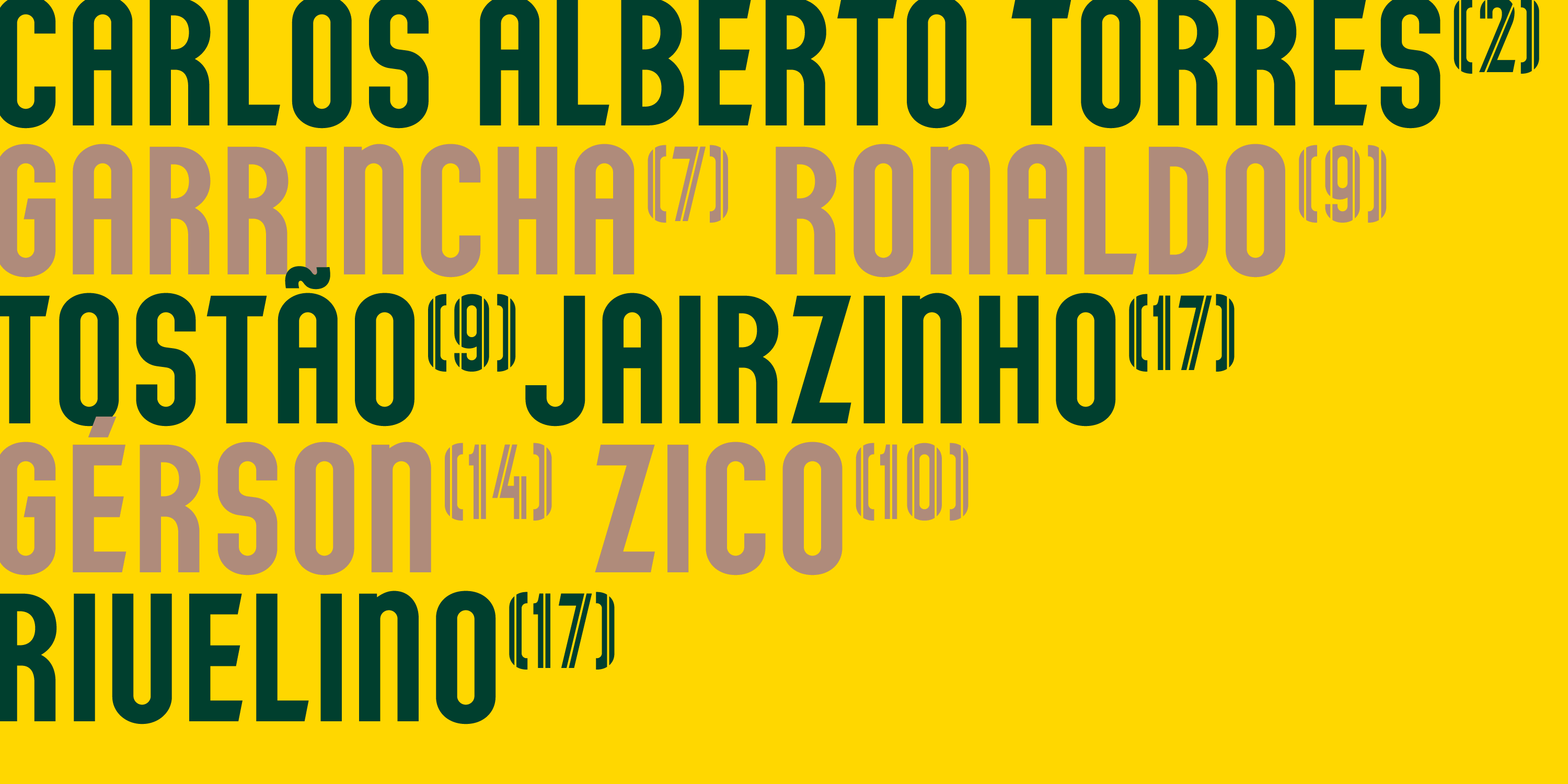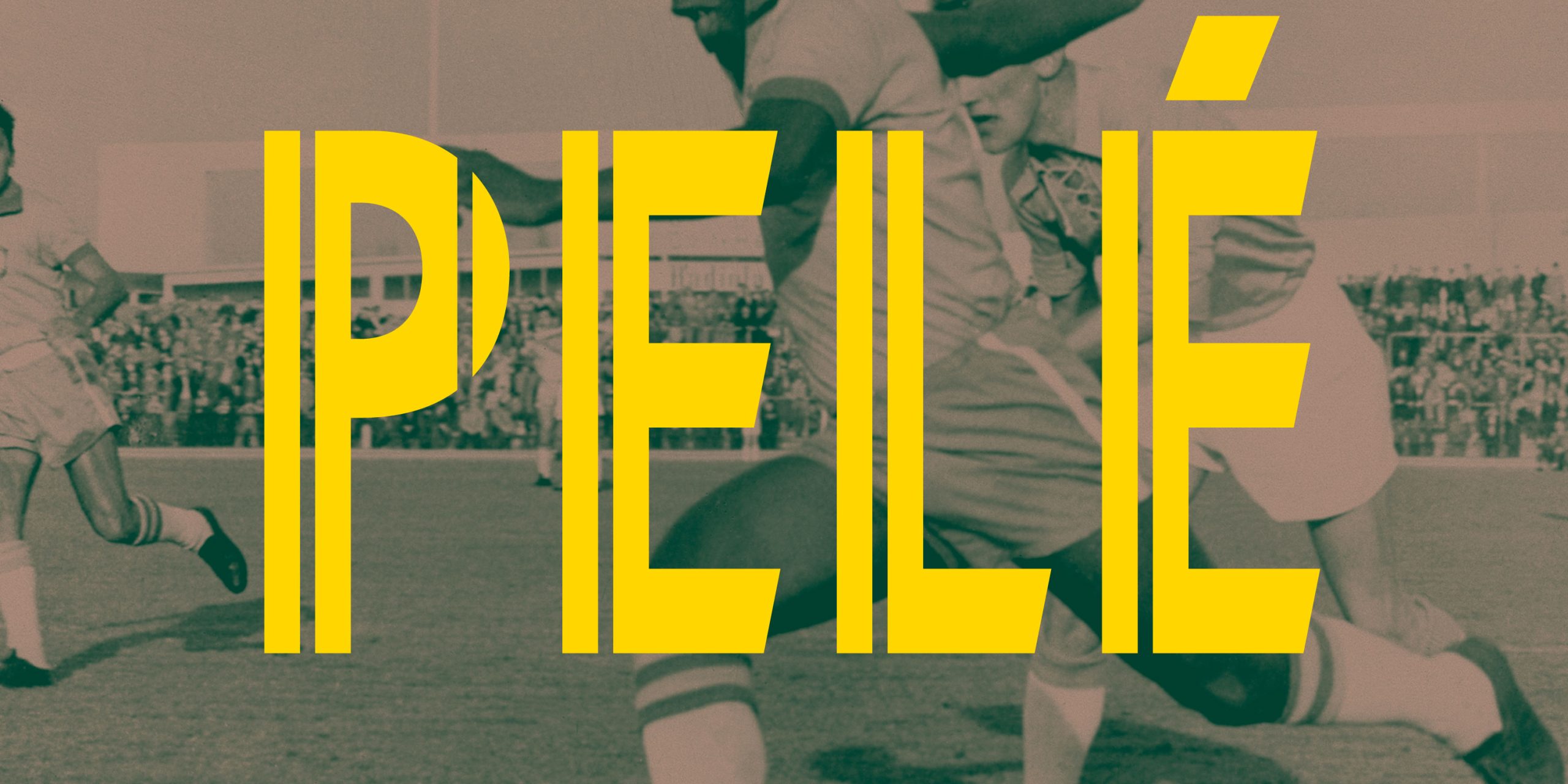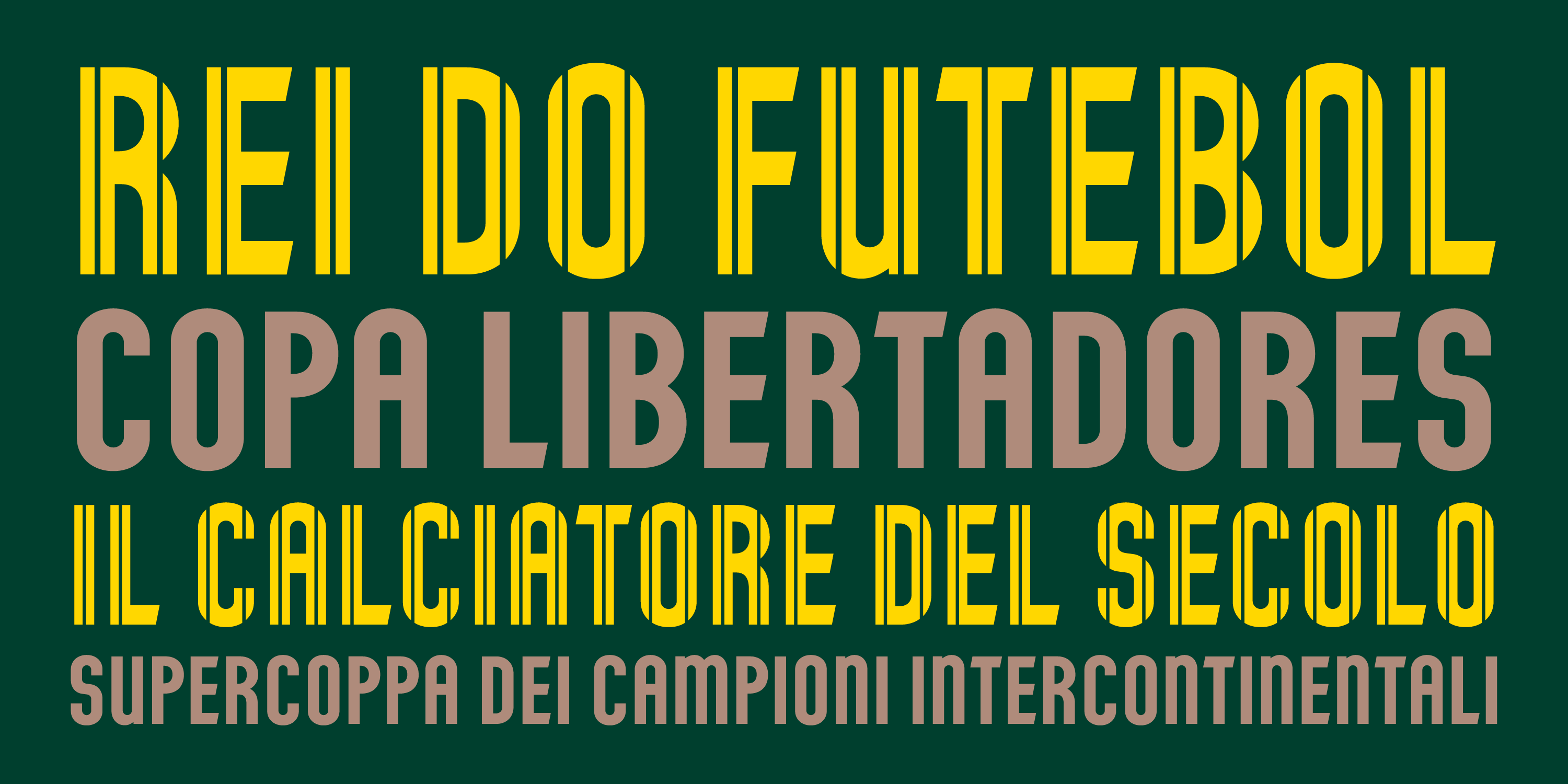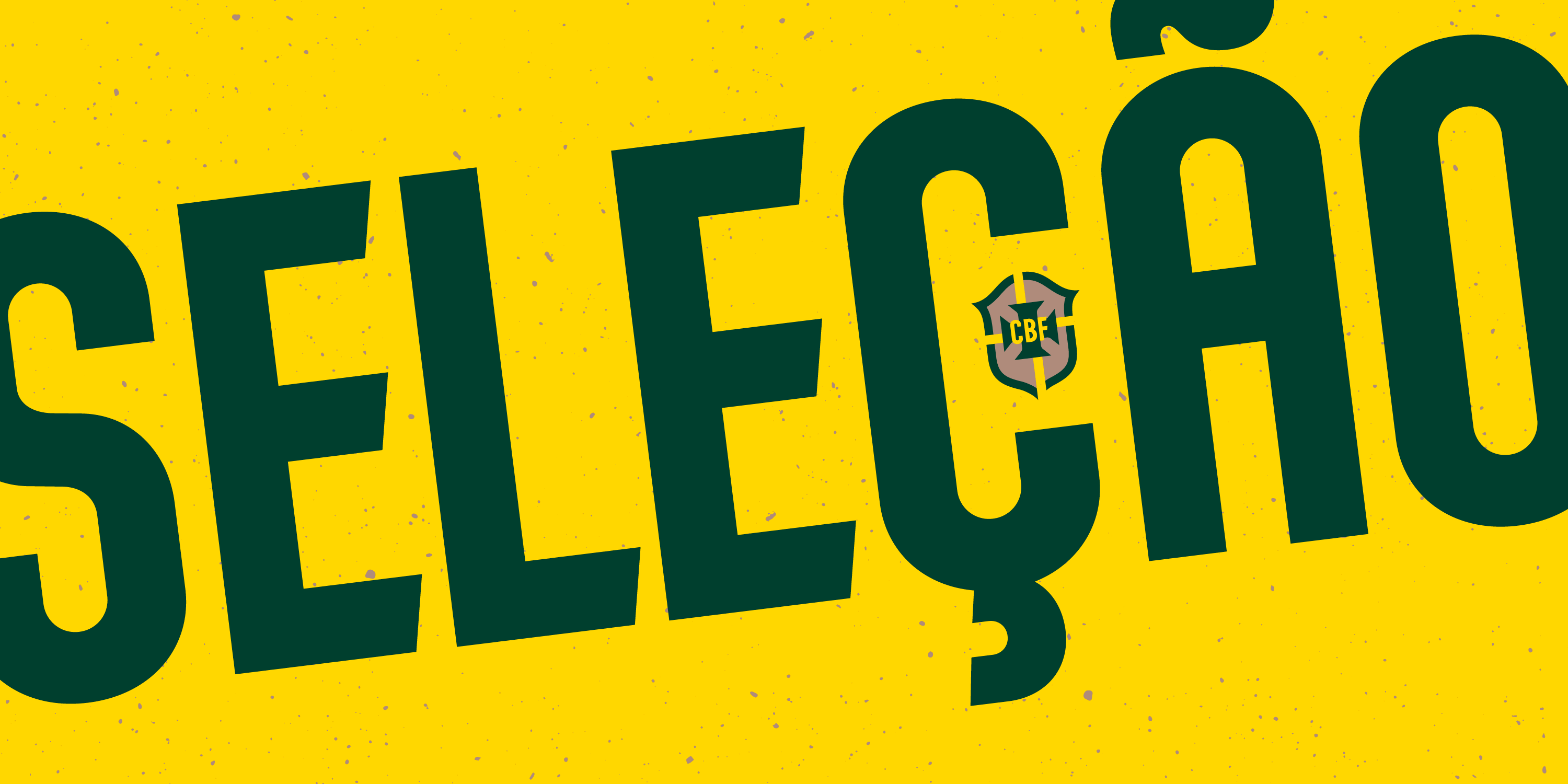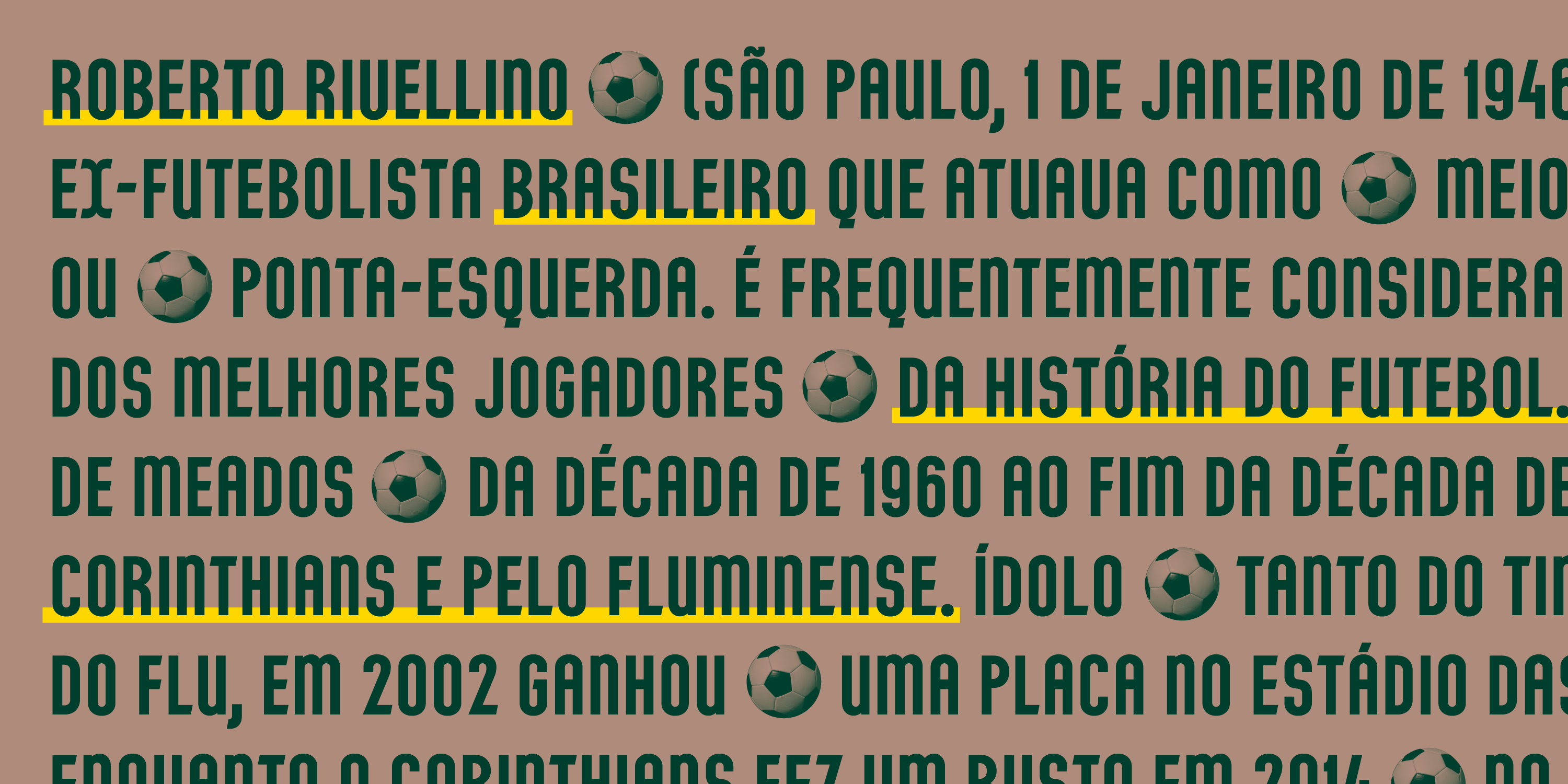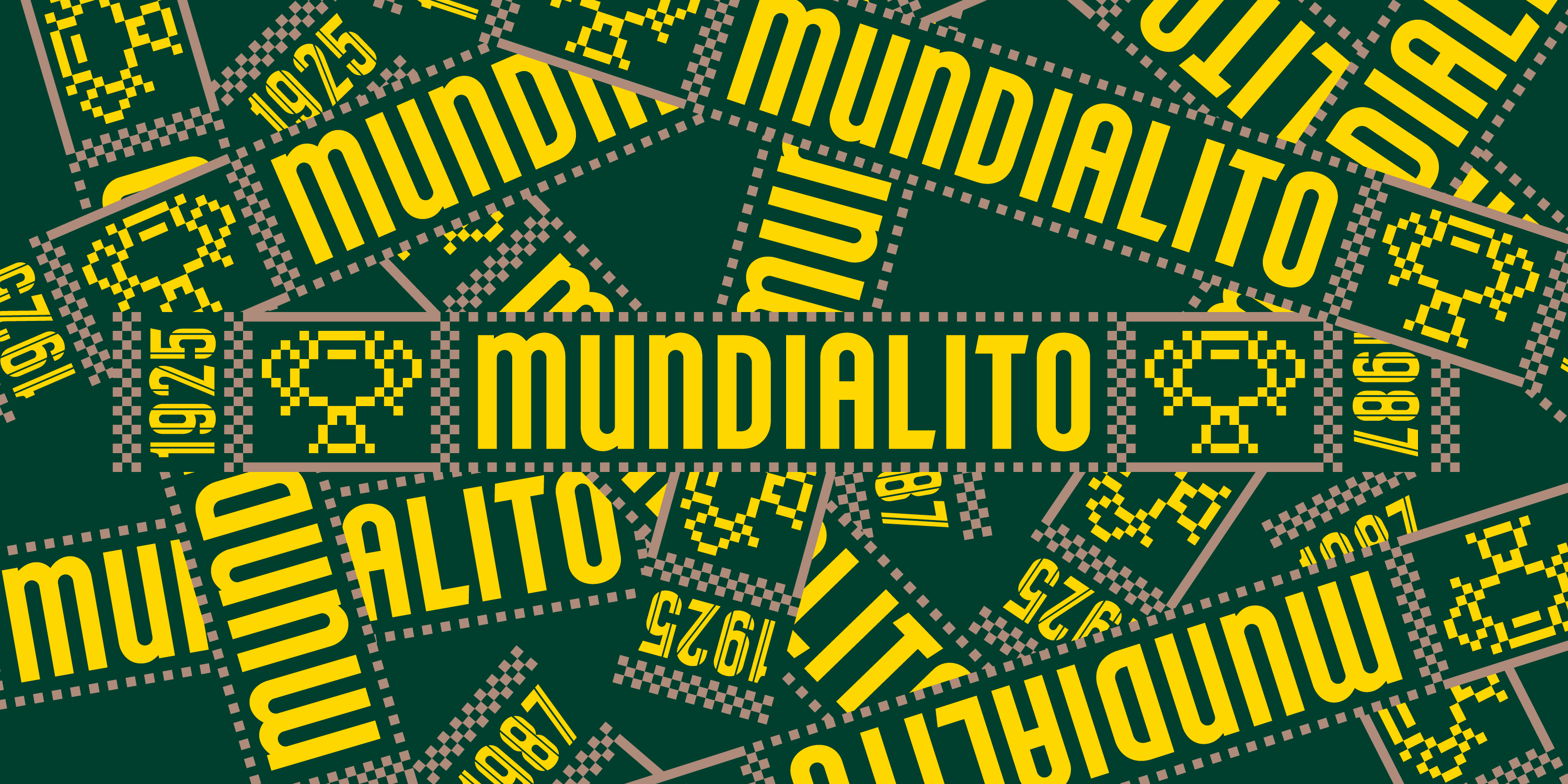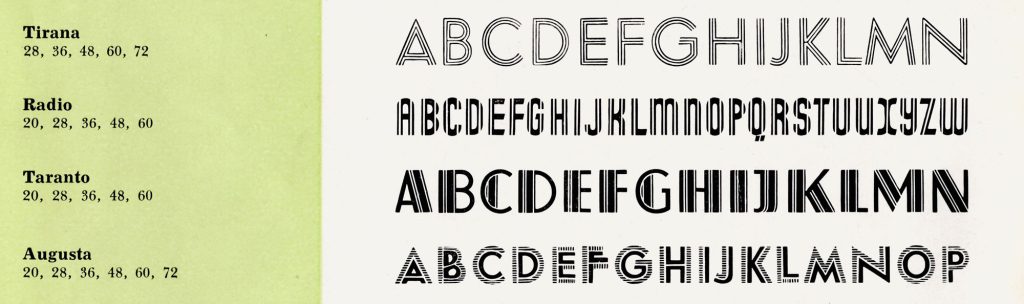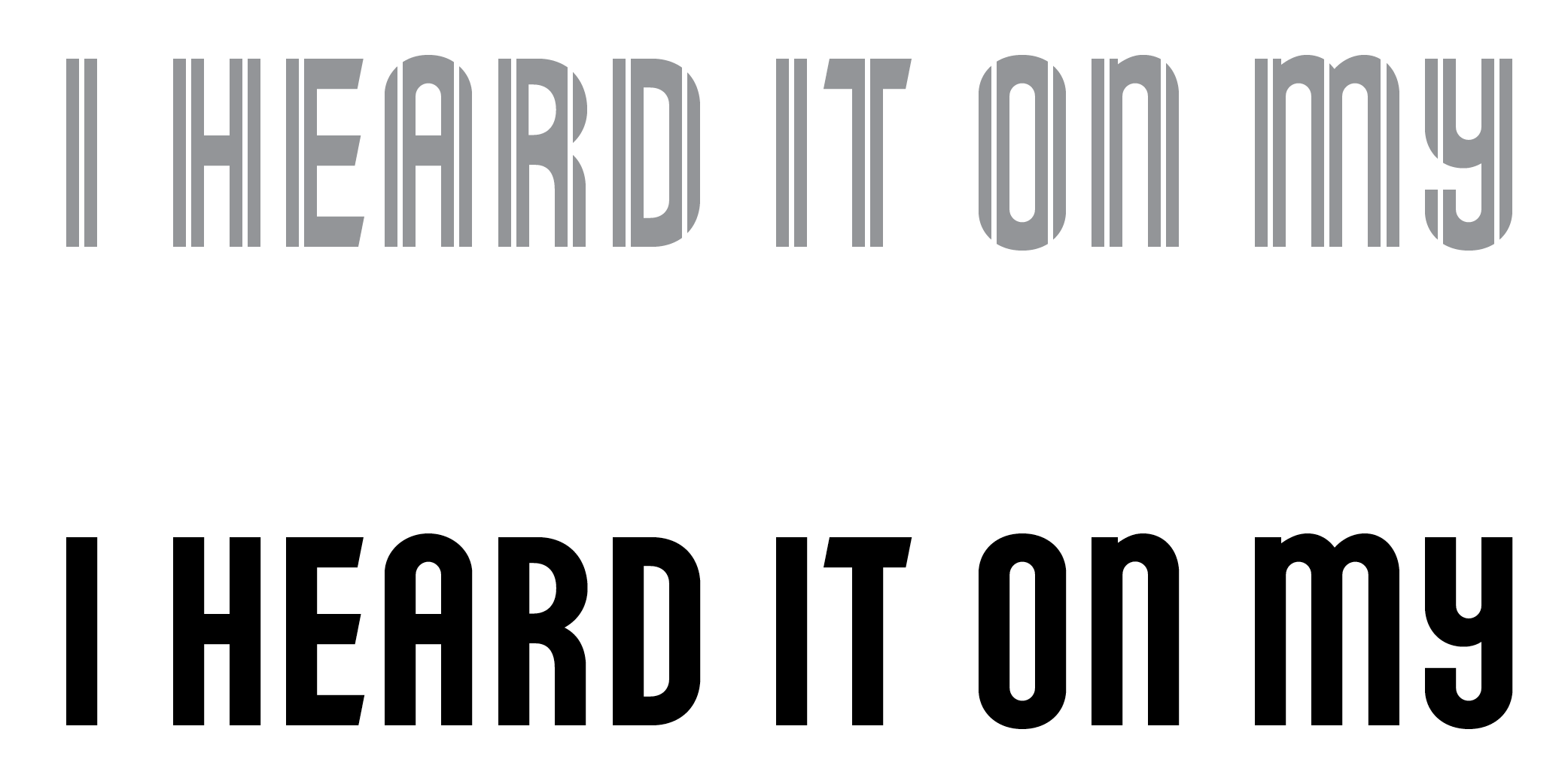
Radio
Radio is an all-caps sans serif with no thick/thin contrast in a modular design that was very popular in the 1930s. Rounded details of A, K and W, and lowercase shapes for M, N and Y are featured in other types in the Alfabeti Modernisti collection, such as Serie 610 and Udine. Radio’s distinctive details are the diagonally cropped terminals of horizontal strokes and, most notably, an unusual inline which cuts vertical stems into two halves. Originally cast in metal around 1935 by Fonderia Tipografica Meridionale Armando De Luca in Naples, it was released in several body sizes from 20 to 60 points.
Designer
Maria Jarzyna
‘When designing the AM Radio digital revival, I focused on improving the proportions to make the characters feel more natural,’ says Maria Jarzyna. ‘I used letters such as H and O as a basis for proportions and spacing, and adjusted a few stroke endings to achieve better proportions and balance. After testing several stroke and inline widths, I chose the one that felt most consistent. Overall, I only corrected what was necessary to keep the type in line with modern requirements, while preserving its original logic and texture. In Radio’s original design, round forms weren’t treated consistently. I worked to unify them, making overly round shapes a bit squarer and overly square ones smoother. The ampersand and brackets were problematic, so I redrew them. I also reused the left side of the question mark in characters like €, £, and quotation marks.’
A solid version of the typeface has been added as a stylistic set. This is particularly useful for sizes smaller than 20 points where the inlines tend to disappear. However, this solid version can also be used at larger sizes in combination with the (default) inline style for a wider range of textural effects.
Solid (ss 01)